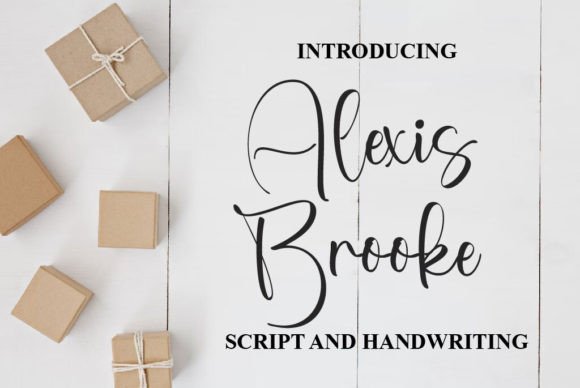
Discover the Charm of Alexis Brooke Font: A Handwritten Font with a Personal Touch
In the world of typography, fonts play a crucial role in conveying the tone and personality of a brand or project. Among the numerous fonts available, Alexis Brooke Font stands out for its unique charm and character. This article will delve into the features and benefits of Alexis Brooke Font, exploring how it can add a touch of warmth and personality to your designs.
What is Alexis Brooke Font?
Alexis Brooke Font is a charming handwritten font that exudes warmth and personality. With its playful yet legible style, this font is perfect for adding a touch of whimsy to any project. The font’s natural strokes and irregularities give it a handmade, authentic feel that sets it apart from more traditional fonts.
Key Features of Alexis Brooke Font
- Handwritten style: Alexis Brooke Font boasts a beautiful, handwritten style that adds a personal touch to any project.
- Playful yet legible: The font’s playful style is balanced with legibility, making it easy to read and understand.
- Natural strokes and irregularities: The font’s natural strokes and irregularities give it a handmade, authentic feel.
- Perfect for greeting cards and invitations: The font’s warm and personal style makes it ideal for greeting cards, invitations, and other personal correspondence.
- Suitable for branding: Alexis Brooke Font can also be used for branding, adding a touch of personality and whimsy to a brand’s identity.
The Benefits of Using Alexis Brooke Font
Using Alexis Brooke Font can bring numerous benefits to your designs. Some of the advantages of this font include:
- Unique and distinctive: Alexis Brooke Font is a unique and distinctive font that can help your designs stand out from the crowd.
- Emotional connection: The font’s handwritten style and natural strokes can create an emotional connection with your audience, making your designs more relatable and engaging.
- Flexibility: Alexis Brooke Font can be used for a wide range of projects, from greeting cards and invitations to branding and advertising.
- Easy to read: Despite its playful style, Alexis Brooke Font is easy to read and understand, making it a great choice for body text and headlines.
How to Use Alexis Brooke Font in Your Designs
Using Alexis Brooke Font in your designs is easy. Here are some tips to get you started:
- Pair with complementary fonts: Pair Alexis Brooke Font with complementary fonts to create a unique and visually appealing typography.
- Use for headlines and body text: Use Alexis Brooke Font for headlines and body text to add a touch of personality and whimsy to your designs.
- Experiment with colors and textures: Experiment with different colors and textures to add depth and interest to your designs.
- Keep it simple: Don’t overcomplicate your designs. Keep it simple and let the font’s natural charm shine through.
Tips for Pairing Alexis Brooke Font with Other Fonts
Pairing Alexis Brooke Font with other fonts can create a unique and visually appealing typography. Here are some tips for pairing Alexis Brooke Font with other fonts:
- Pair with serif fonts: Pair Alexis Brooke Font with serif fonts, such as Times New Roman or Garamond, to create a classic and elegant look.
- Pair with sans-serif fonts: Pair Alexis Brooke Font with sans-serif fonts, such as Arial or Helvetica, to create a modern and clean look.
- Pair with script fonts: Pair Alexis Brooke Font with script fonts, such as Pacifico or Great Vibes, to create a elegant and sophisticated look.
- Experiment with font sizes: Experiment with different font sizes to create visual interest and hierarchy in your designs.
Alexis Brooke Font is a charming handwritten font that exudes warmth and personality. With its playful yet legible style, this font is perfect for adding a touch of whimsy to any project. Whether you’re designing greeting cards, invitations, or branding materials, Alexis Brooke Font is a great choice. Its unique and distinctive style, emotional connection, and flexibility make it a valuable addition to any designer’s toolkit.
FAQs About Alexis Brooke Font
- What is Alexis Brooke Font?: Alexis Brooke Font is a charming handwritten font that exudes warmth and personality.